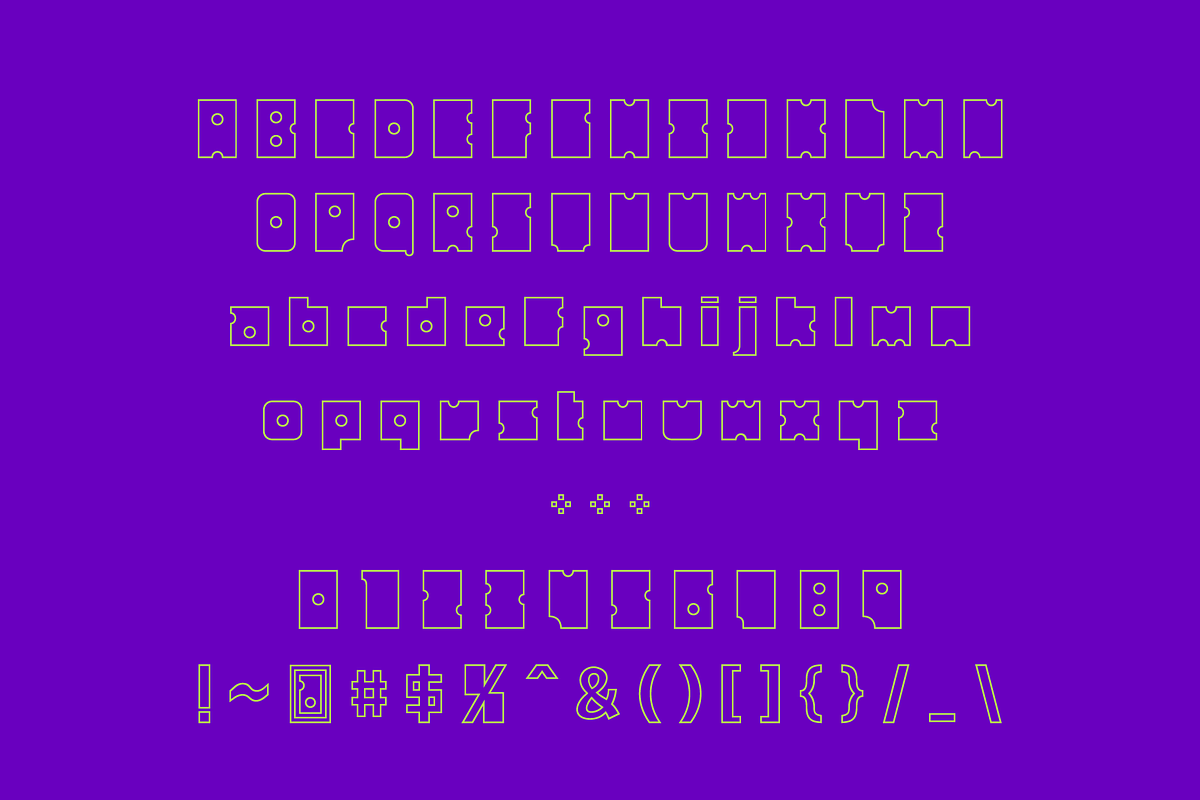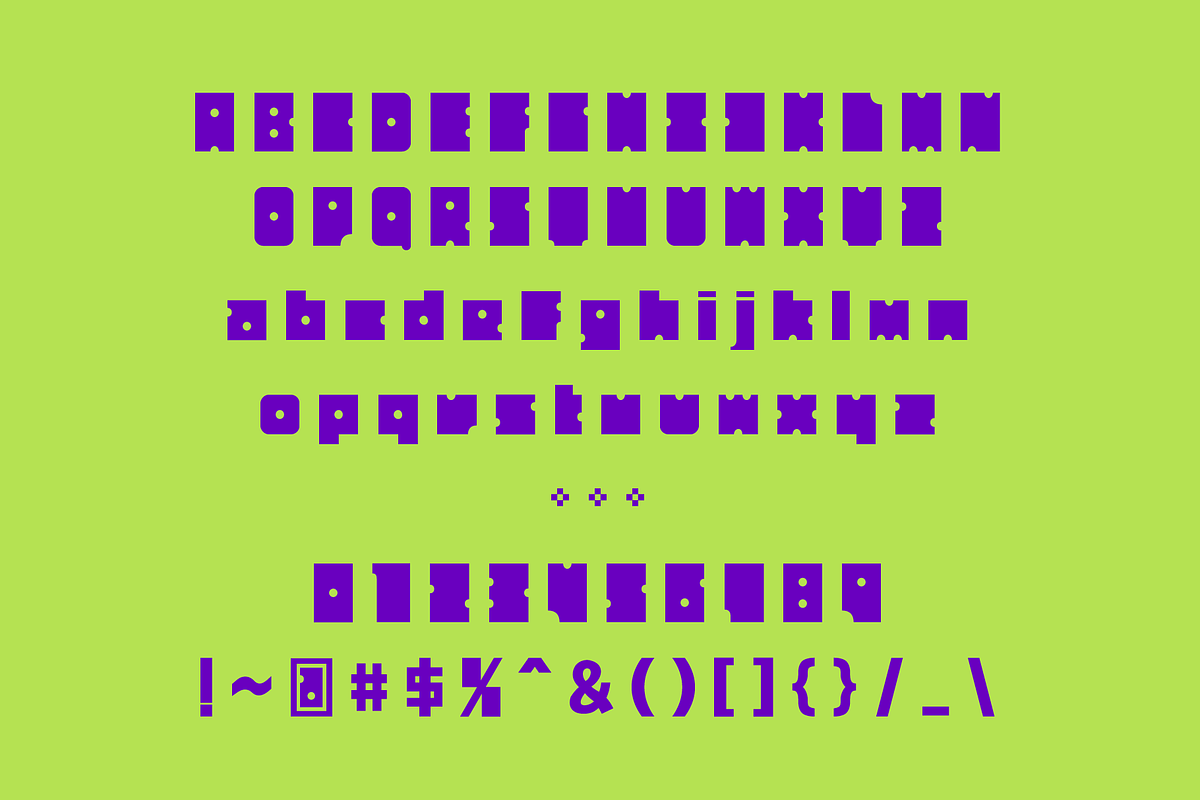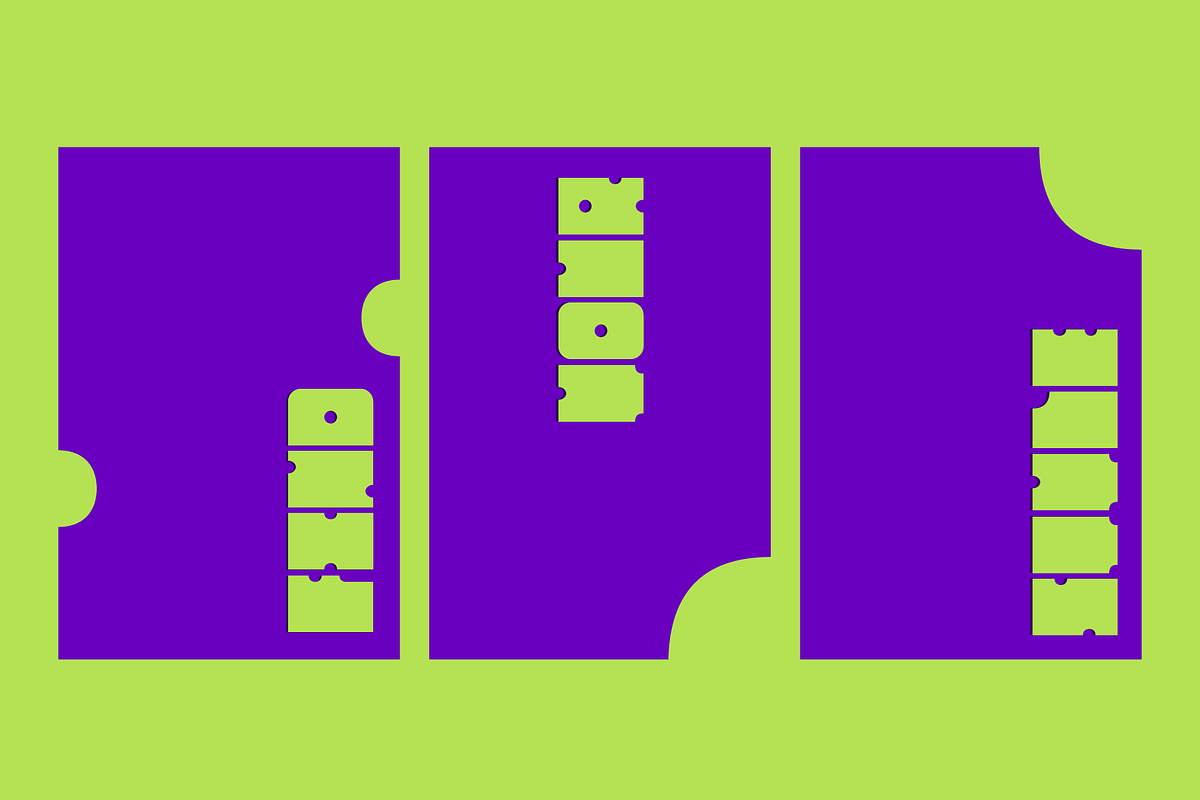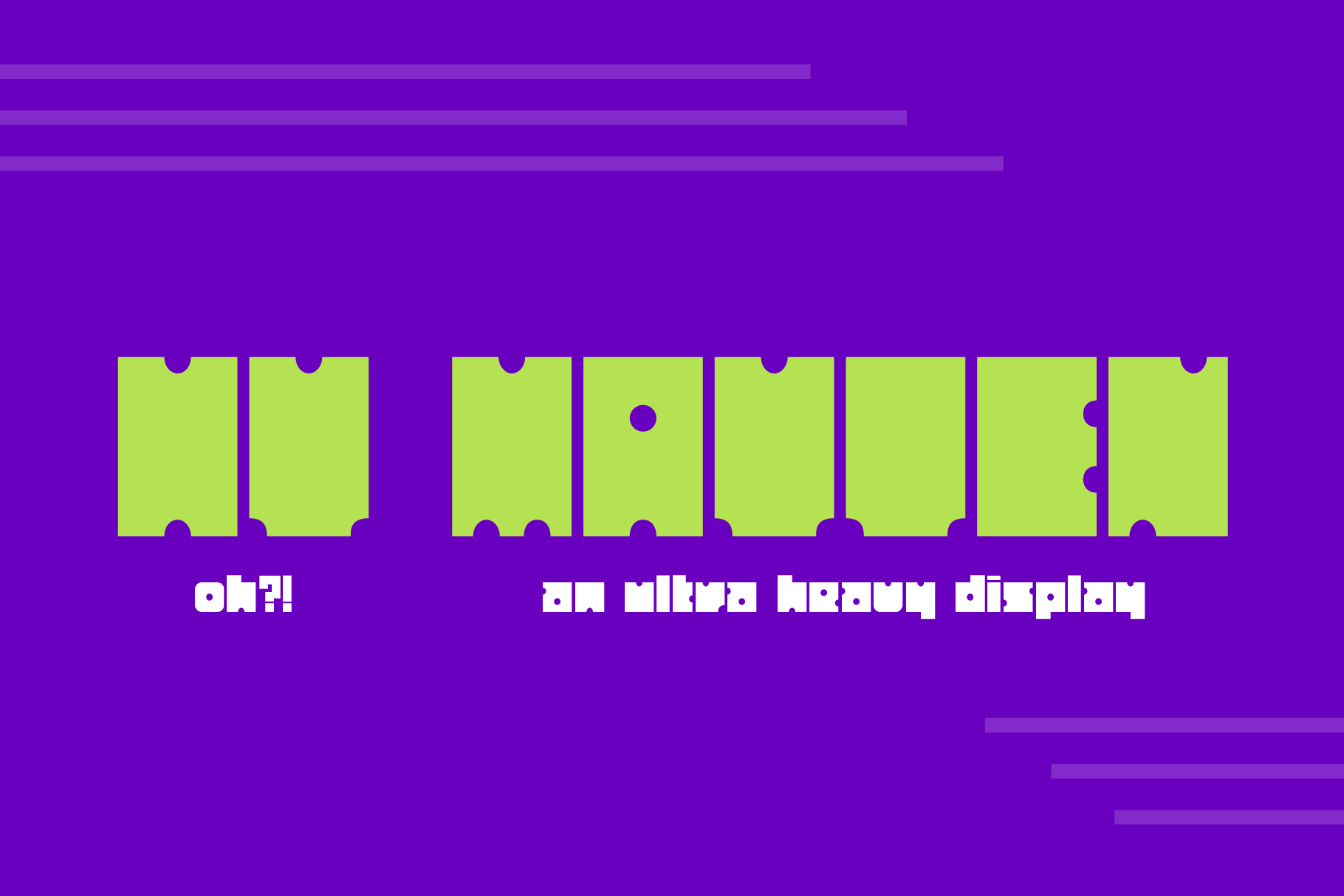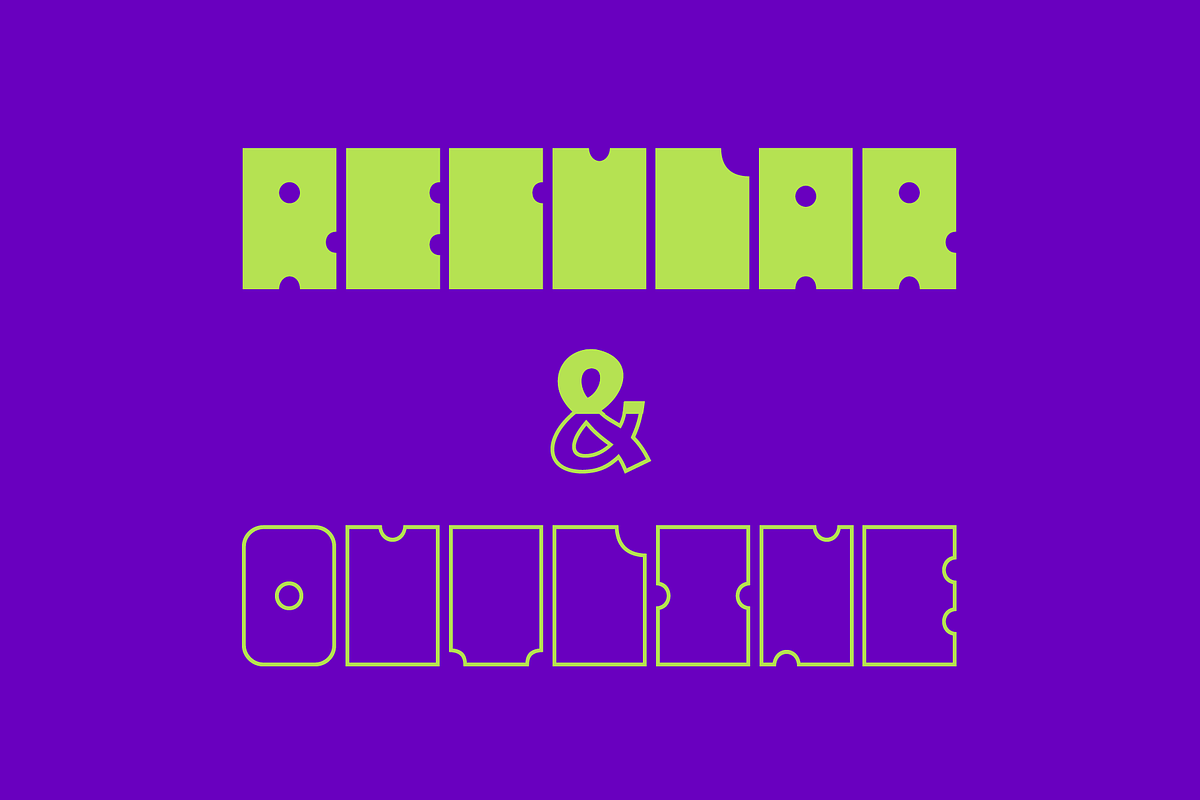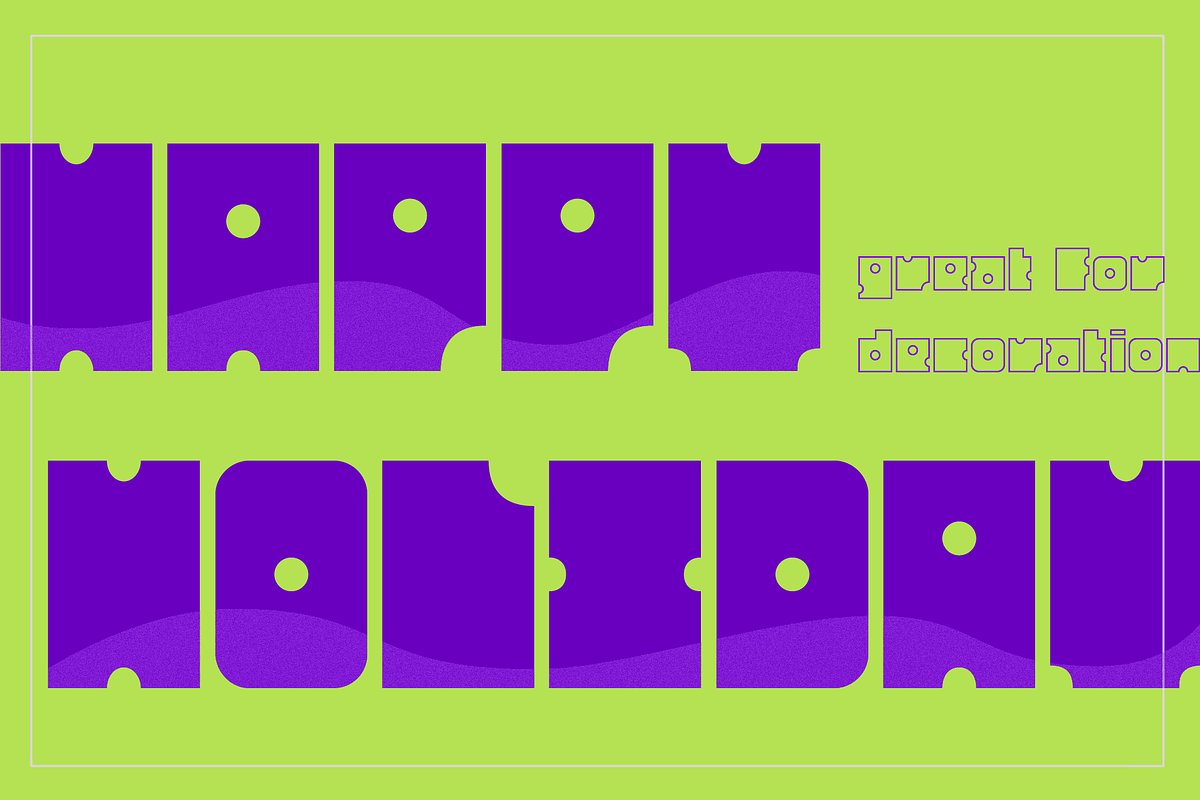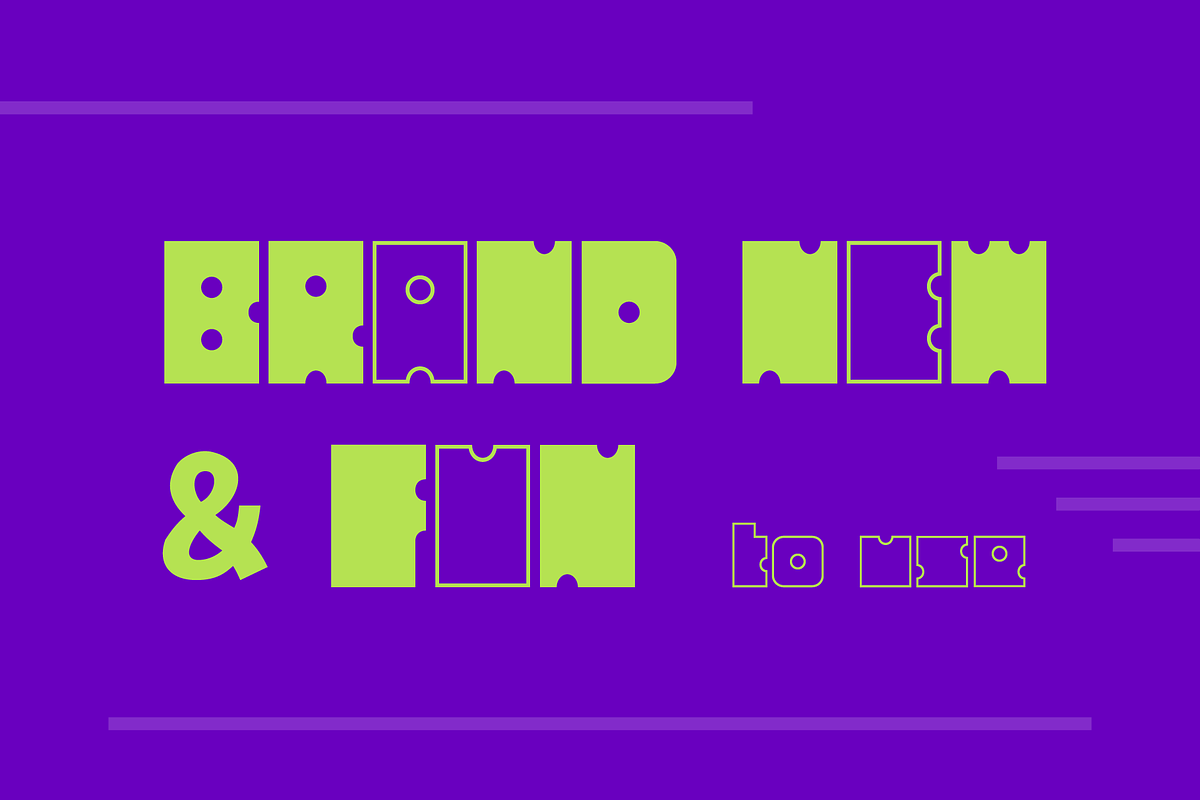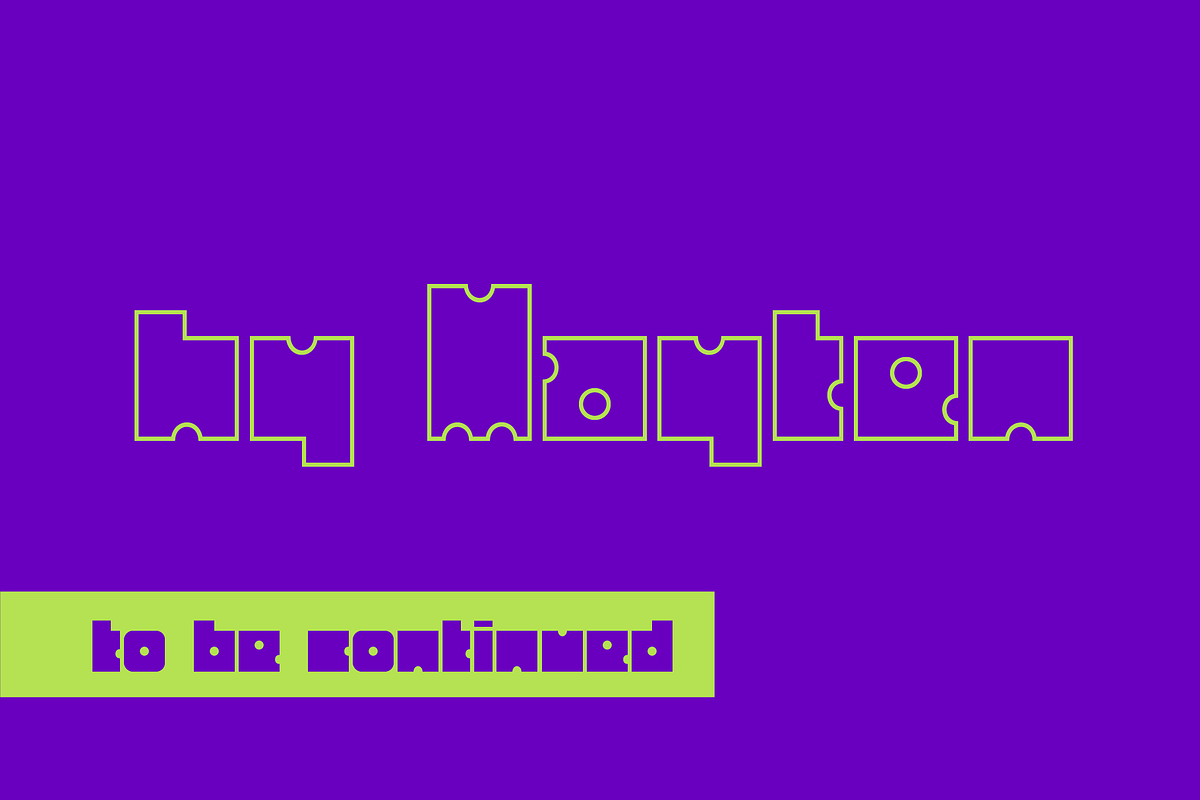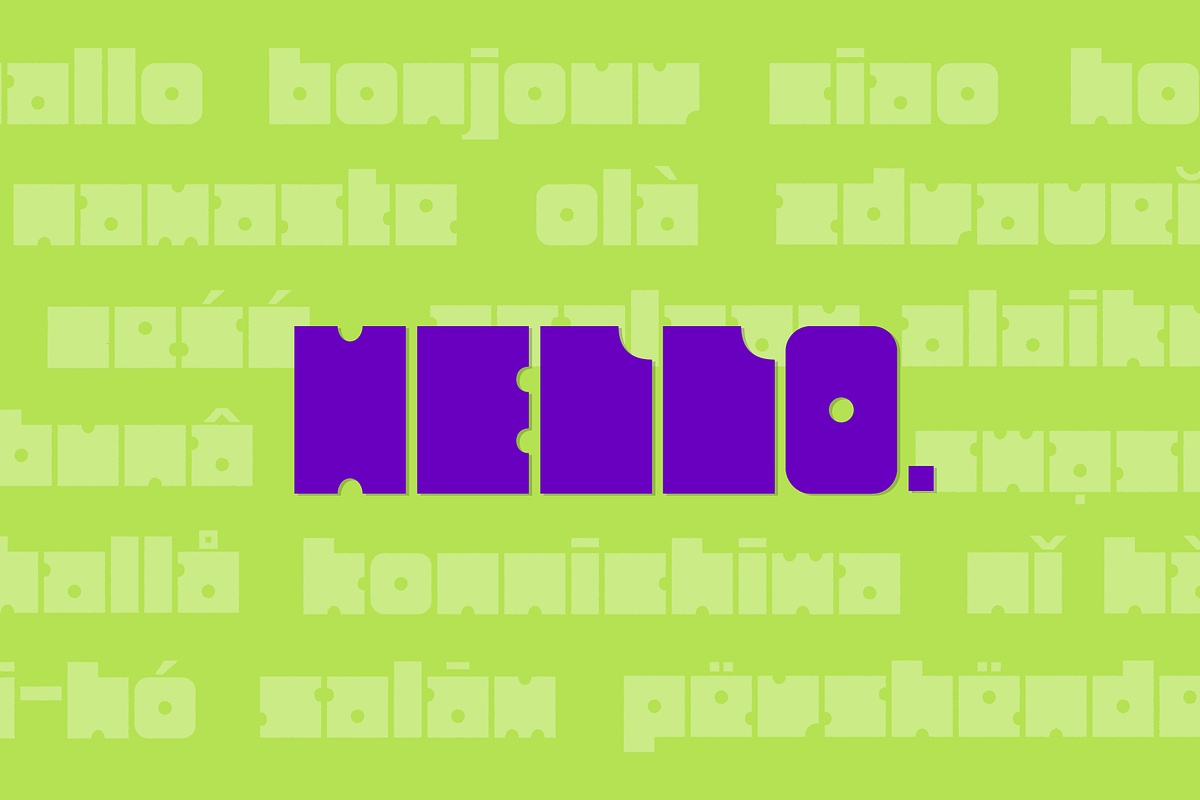
HY Mayten | Display Font
HY Mayten is an ultra heavy display font designed for creators.
With its heavy weight and geometric design, HY Mayten makes a bold and impactful statement in your project. Each upper case glyph is meticulously crafted to maintain a consistent rectangle shape, adding a touch of modernity and sophistication to your designs.
And this typeface is more than just a display font - it's a versatile tool for all your creative endeavors. Whether you're looking to decorate a space or fill it with eye-catching typography, this font has got you covered.
With the addition of lowercases and symbols, HY Mayten offers more flexibility and possibilities for your projects. Plus, it offers multi-lingual support. It now comes with 2 styles and we hope you enjoy it :)